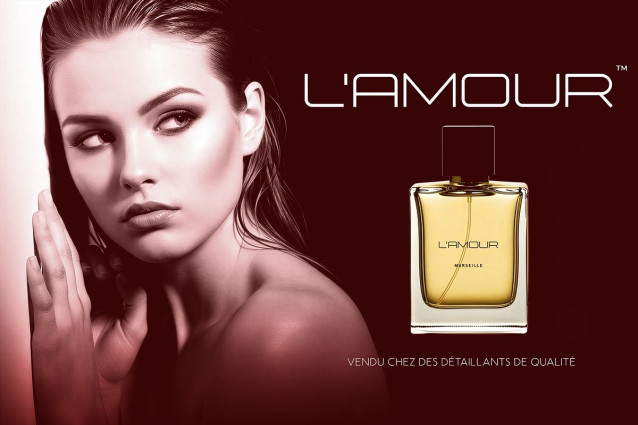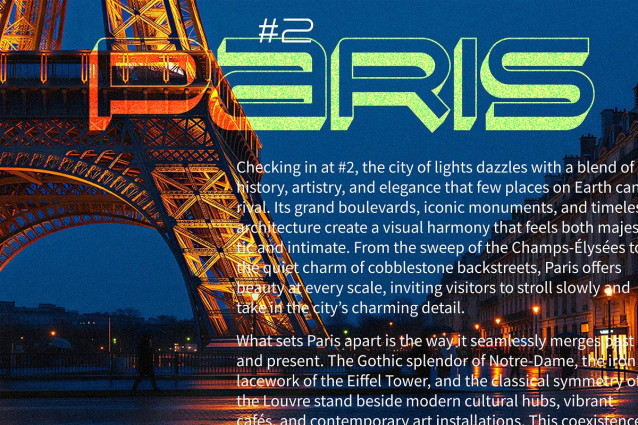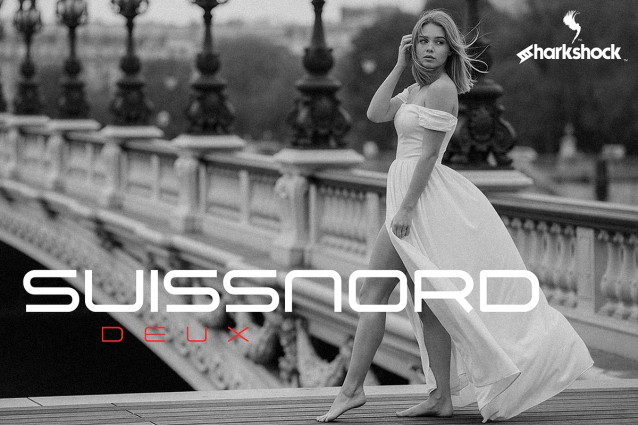
Suissnord Deux Font
Suissnord Deux Font Keeping with the roots of the legacy version, it combines rounded corners and sleek lines throughout the all-caps character set. The overall width was reduced and many glyphs were completely redrawn. The result was a more refined, sophisticated look with an emphasis on harmony. This is best illustrated in the similar shapes shared amongst characters. Use it for a company logo, spa signage, or an app.